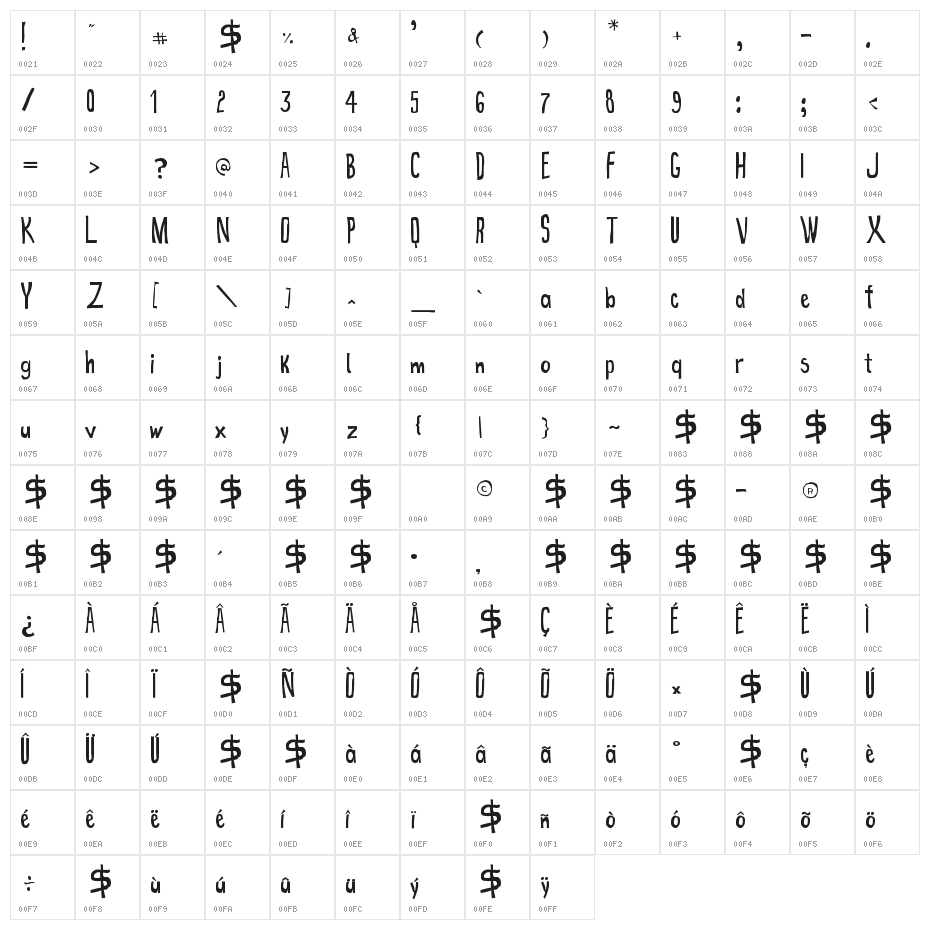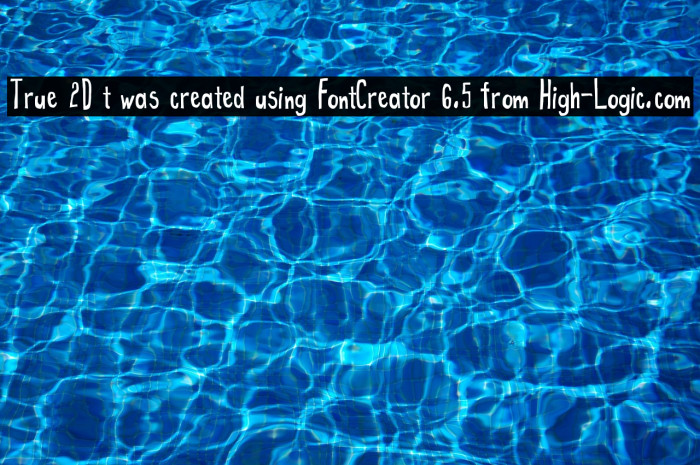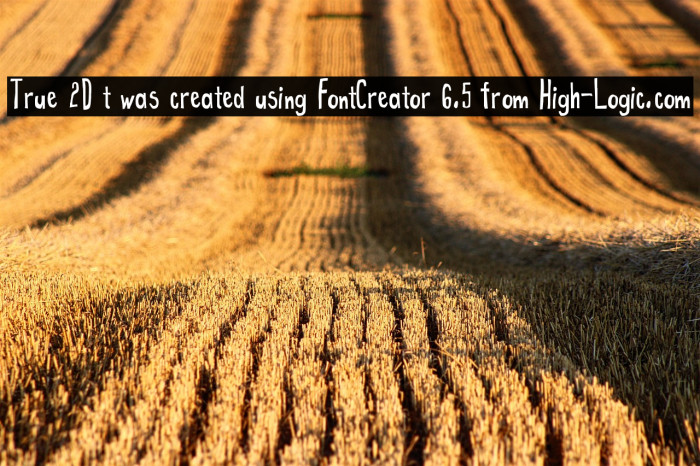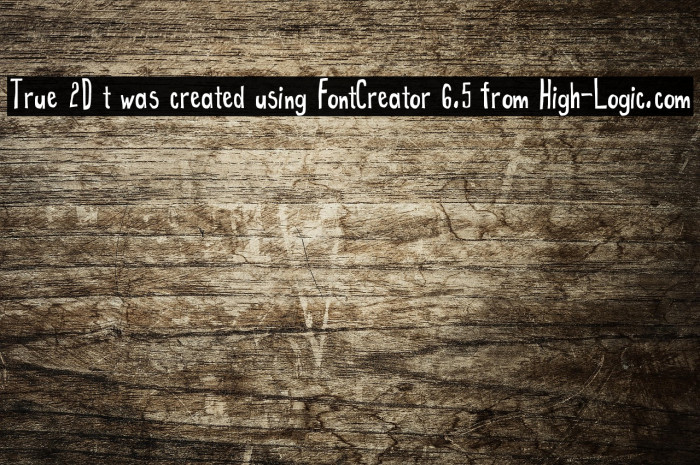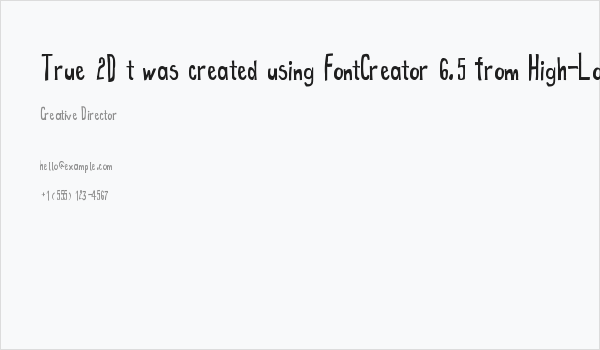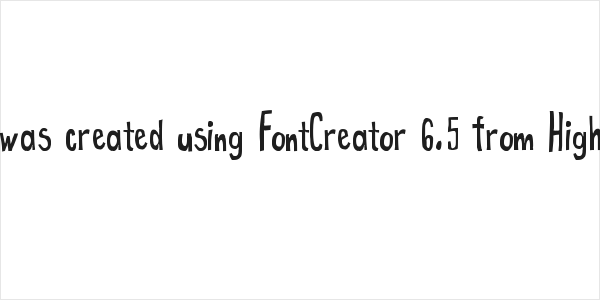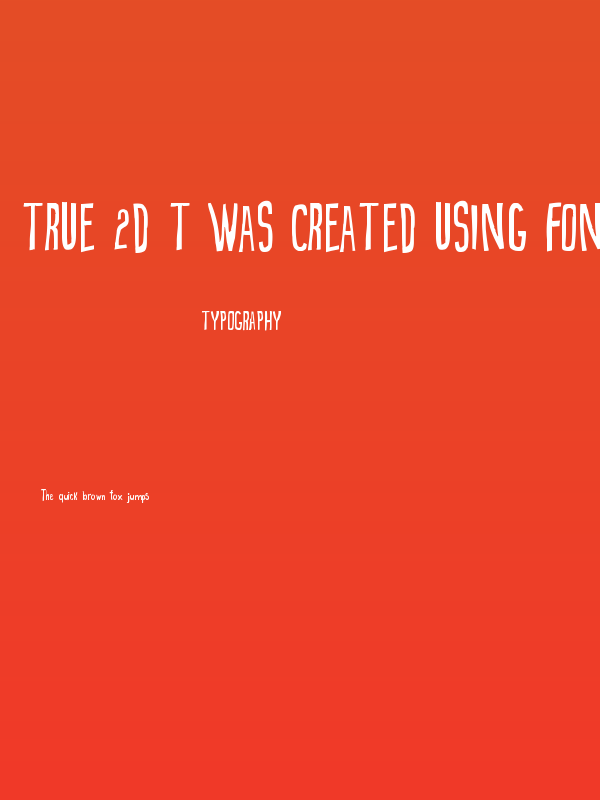
True 2D t was created using FontCreator 6.5 from High-Logic.com Font
True 2D t was created using FontCreator 6.5 from High-Logic.com Description
This font features a playful and quirky design with irregular, hand-drawn strokes that give it a lively and informal appearance. The uppercase letters are tall and narrow, with varying stroke widths that add a dynamic feel. The lowercase letters maintain the same whimsical style, with some characters having unique, exaggerated features. The numbers are consistent with the overall style, offering a cohesive look. Special characters are creatively designed, maintaining the font's distinctive personality. This font is perfect for projects that require a fun and engaging aesthetic.
| Proposed Projects | Ideal for children's books, playful branding, event posters, and creative social media graphics. |